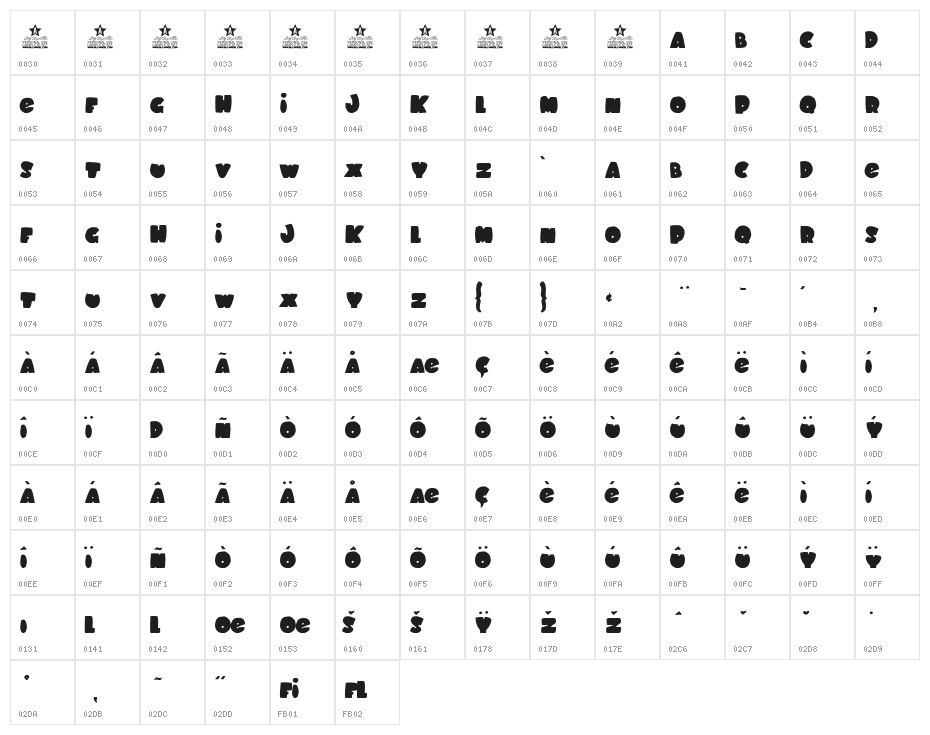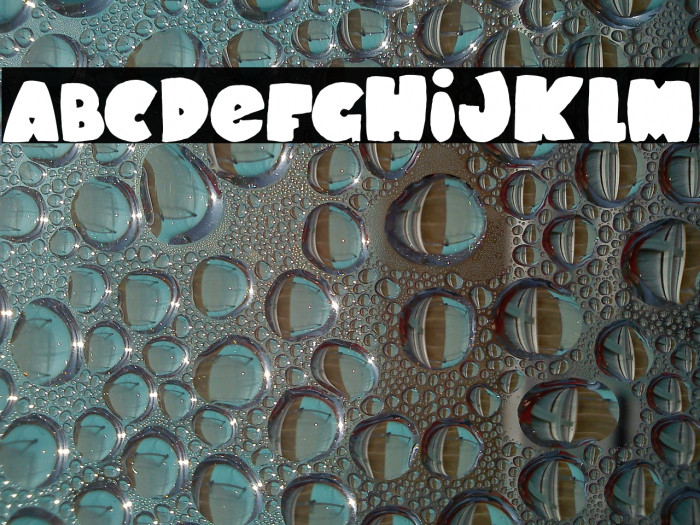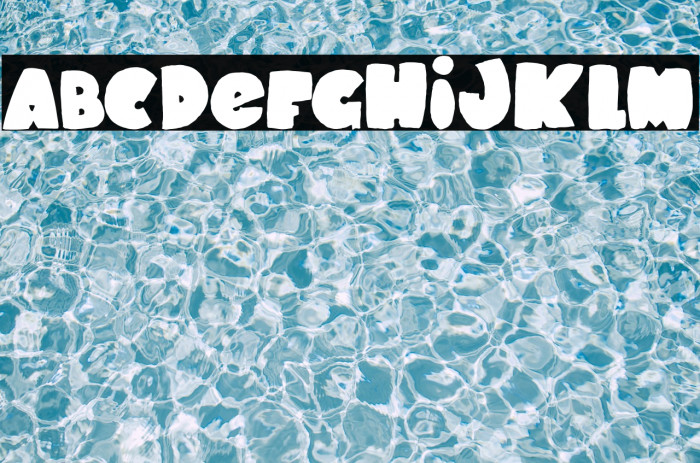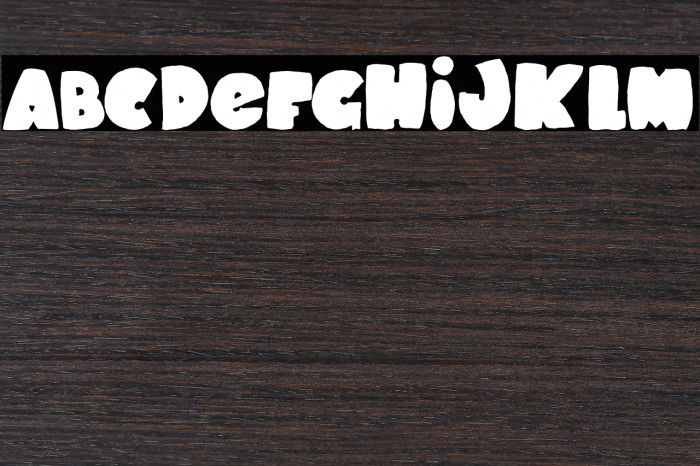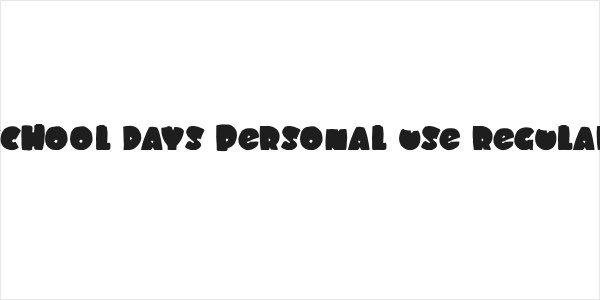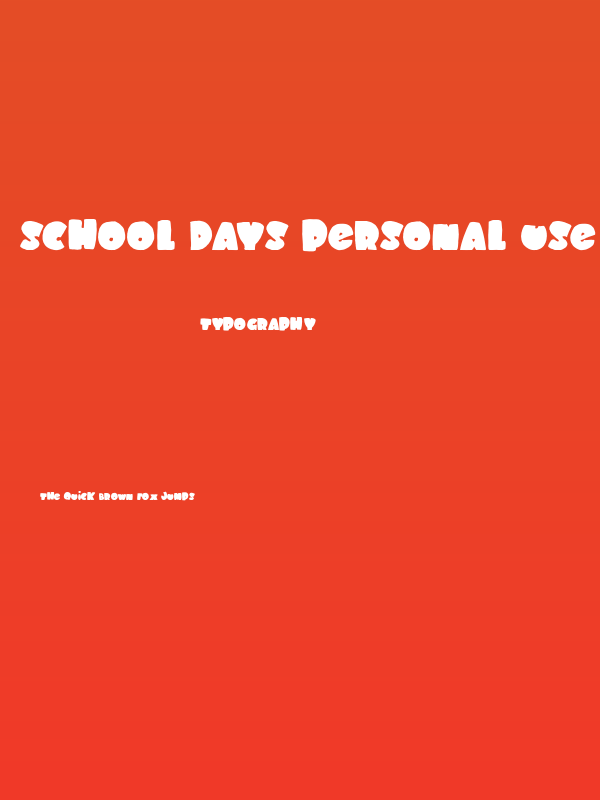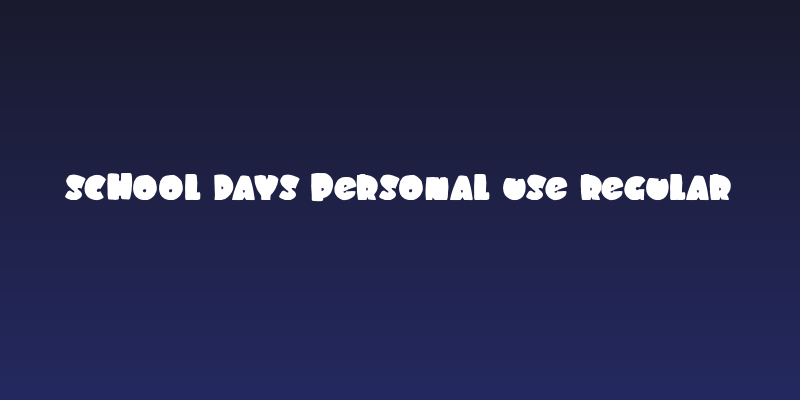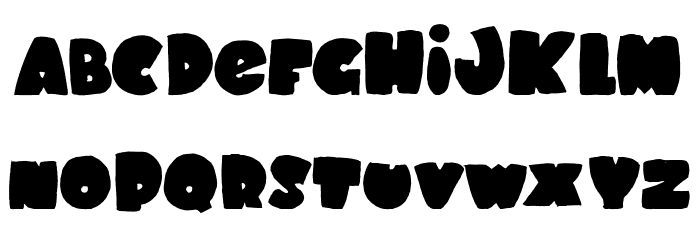
SCHOOL DAYS PERSONAL USE Regular Font
SCHOOL DAYS PERSONAL USE Regular Description
This playful and bold font features chunky, irregular letterforms that evoke a sense of fun and creativity. The characters are heavily weighted, with a hand-drawn appearance that adds a whimsical touch. The uppercase and lowercase letters maintain a consistent style, with rounded edges and a slightly uneven baseline, enhancing the informal and friendly vibe. The font is highly legible, making it suitable for eye-catching designs. Its unique style is perfect for projects that require a touch of personality and charm.
| Proposed Projects | Ideal for children's books, playful branding, posters, and creative projects. |